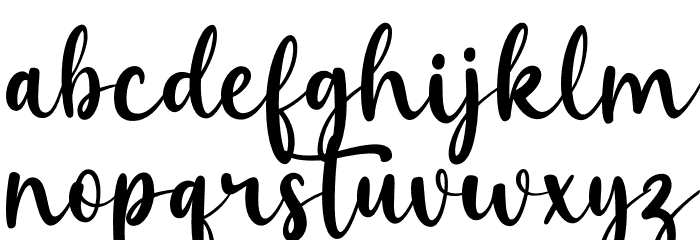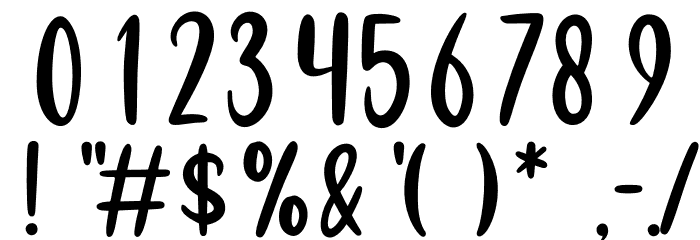
Misha Salma Font
This font features a lively and flowing script style, characterized by its elegant and connected letterforms. The uppercase letters are bold and expressive, with a playful yet sophisticated flair. The lowercase letters maintain a consistent flow, enhancing readability while preserving the font's artistic nature. Numbers and special characters are designed with the same fluidity, ensuring a cohesive look across all text. The overall appearance is both modern and timeless, making it suitable for a variety of creative applications.
A lively and flowing script font with elegant, connected letterforms.
- Font: Misha Salma
- Proposed Projects: Ideal for wedding invitations, greeting cards, branding projects, and social media graphics.
- Category: Script
- Use Case: Logos, Headlines, Invitations